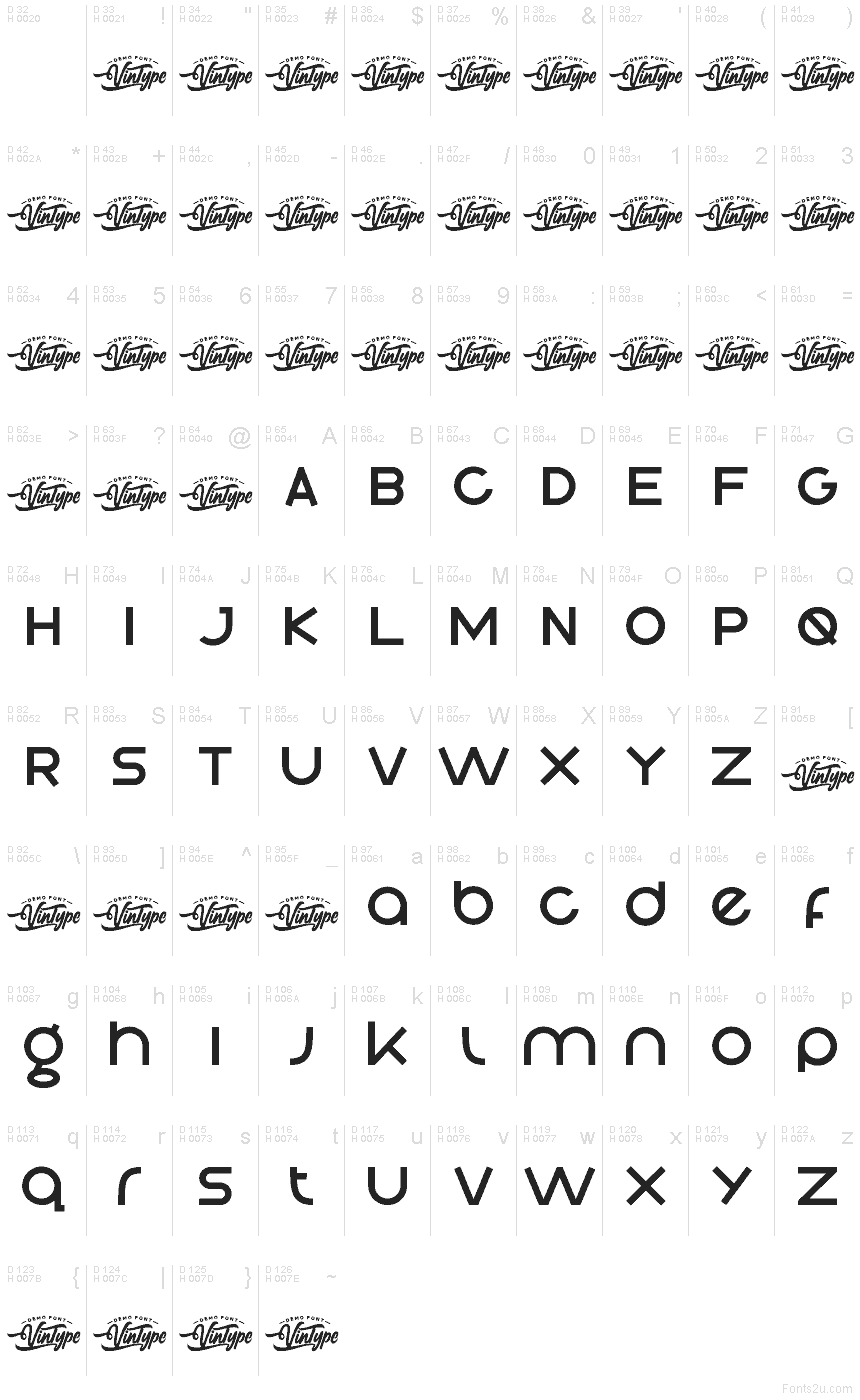
Granita Demo
Granita font by VinType is a free groovy display typeface. Its defining move is the smooth, tubular build with scooped cut-ins that carve light into each letter, creating a lively rhythm without getting noisy. Rounded edges feel soft to the touch, while the steady weight gives headlines a confident, retro-futurist thump that stays readable even when you push the size.
Using Granita, you get a grin-inducing voice that shines on festival posters, beverage branding, snack packaging, album covers, boutique signage, and bold social graphics. The open shapes and even pacing pull the eye across a line, great for punchy taglines and short names. Pair this free font with a neutral grotesk or a light geometric sans for copy, and let Granita handle the spotlight.